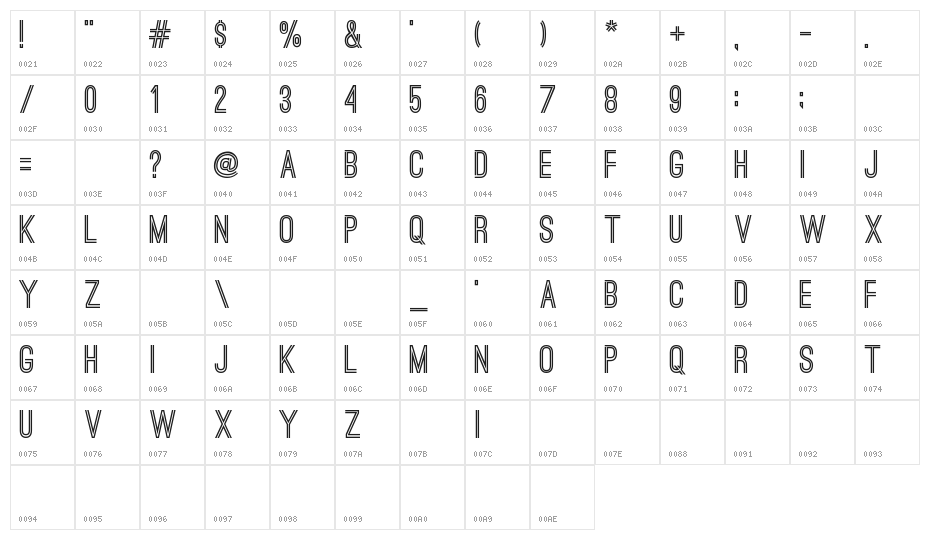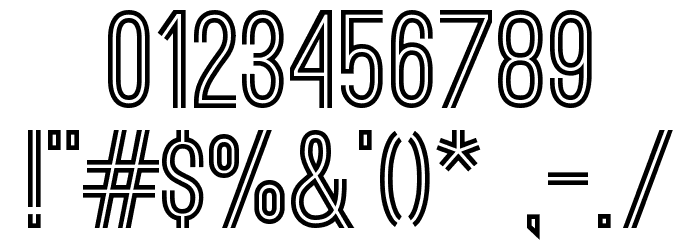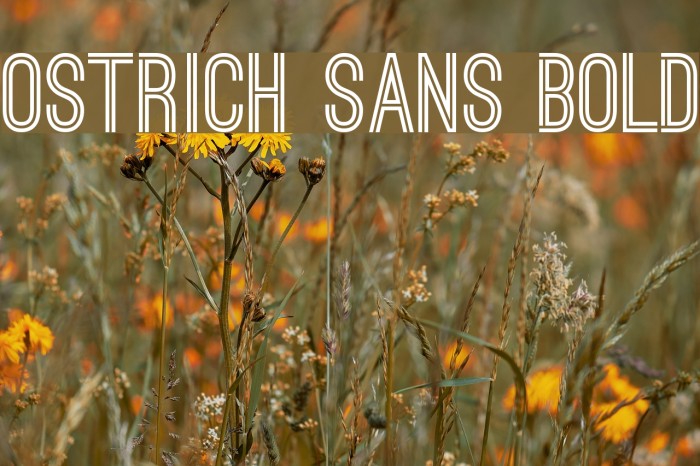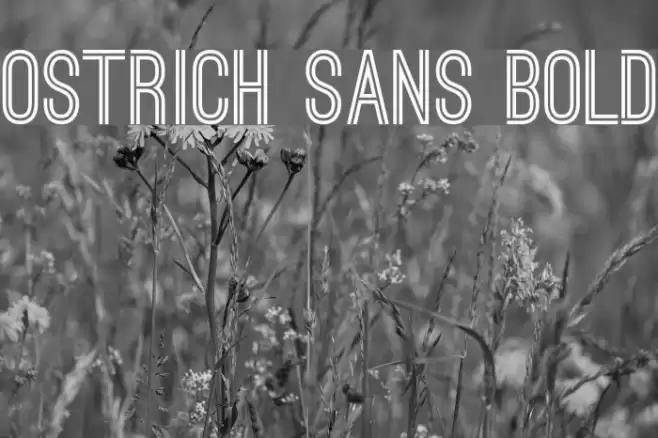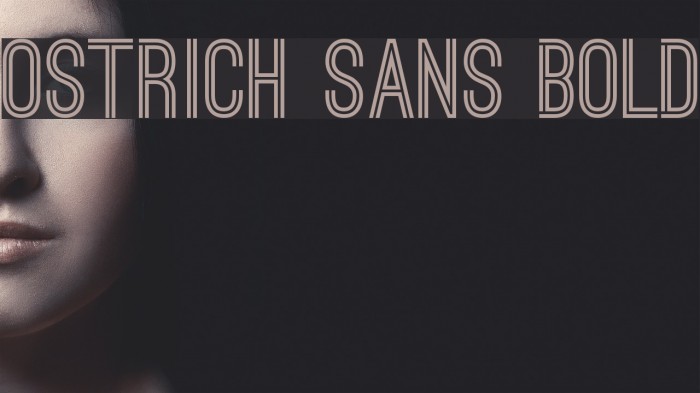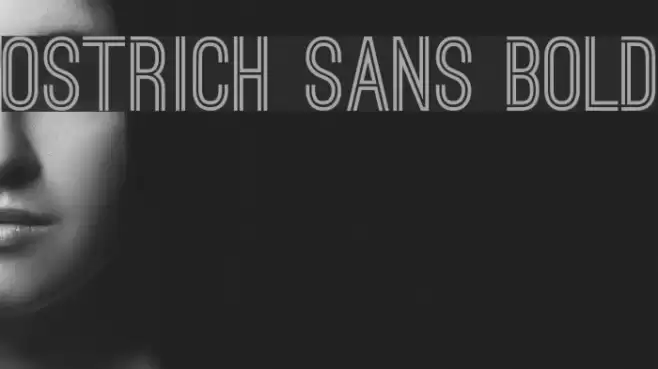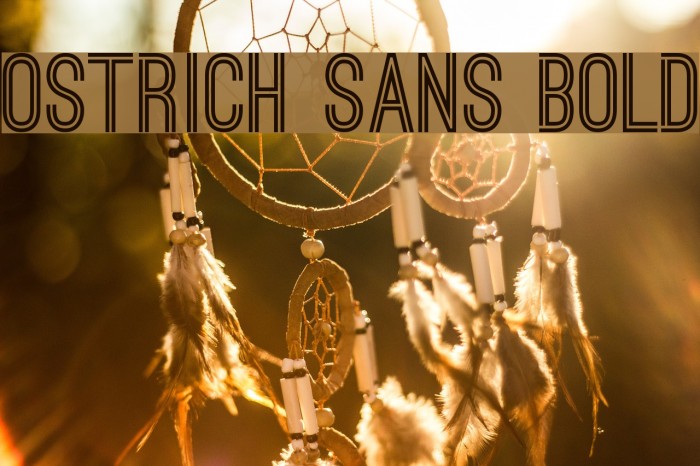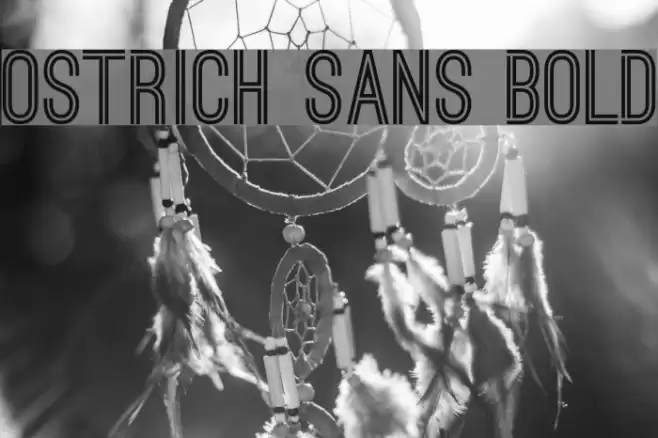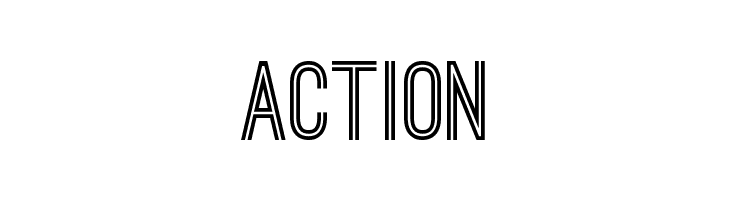
Ostrich Sans Bold Font
Ostrich Sans Bold Description
This font features a modern and clean sans-serif style with a bold and striking appearance. The characters are outlined, creating a unique hollow effect that adds a sense of depth and dimension. The uppercase and lowercase letters maintain a consistent geometric structure, emphasizing vertical and horizontal lines. The numerals and special characters are designed to match the overall aesthetic, ensuring uniformity across all glyphs. This font's distinct style makes it suitable for eye-catching designs and contemporary projects.
| Proposed Projects | Ideal for branding, headlines, posters, and digital media where a modern and bold statement is needed. |